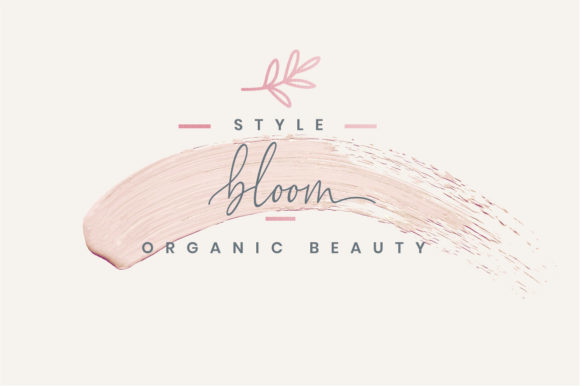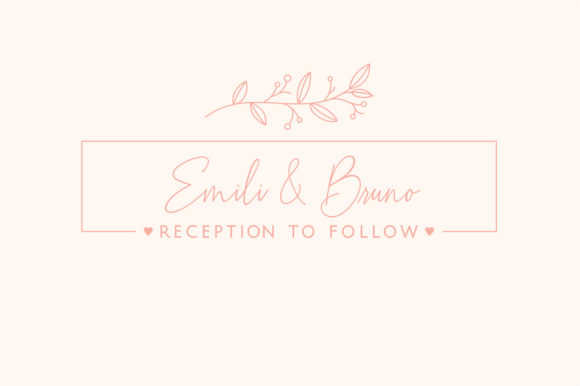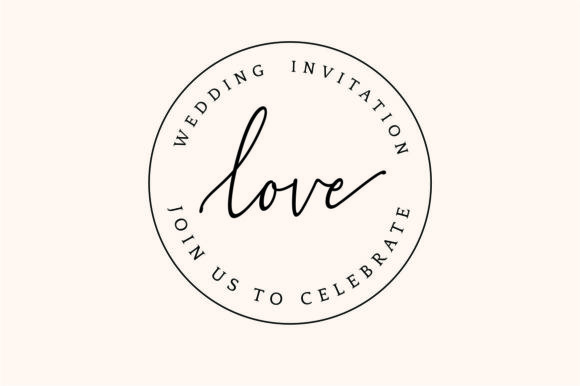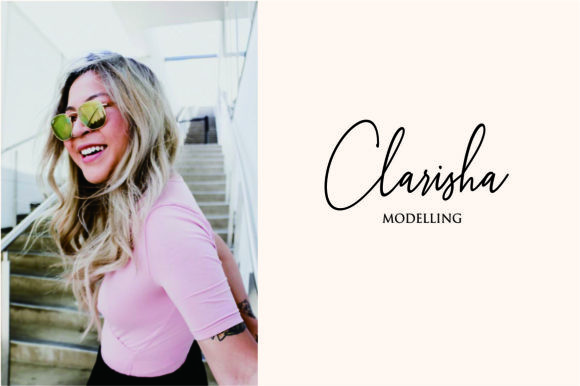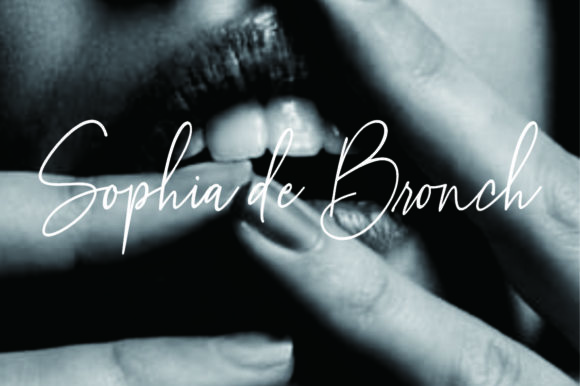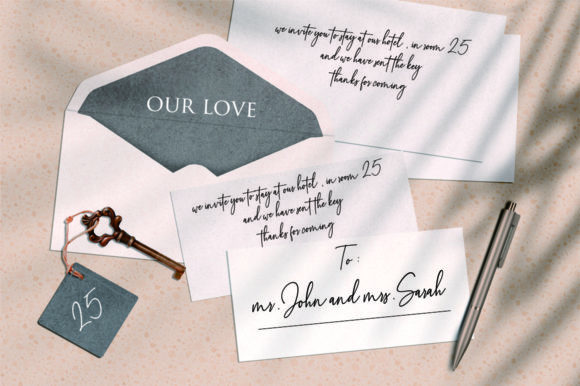
The Blancha Font: A Sweet and Friendly Handwritten Delight
I’ll never forget the design project that led me to discover the Blancha font. I was working on a branding project for a new coffee shop, and I was struggling to find the perfect font to capture their friendly and modern vibe. That’s when I stumbled upon Blancha, a sweet and friendly handwritten font that instantly won me over. In this article, I’ll share my love for Blancha, its features, and how to make the most of it in your designs.
An Honest Review of Blancha Font
What I Love About Blancha ✨
• ✅ Unique and modern look: Blancha has a distinct, cool style that sets it apart from other handwritten fonts.
• ✅ Elegant and legible: The font is easy to read, making it perfect for body text, headings, and titles.
• ✅ Versatile: Blancha works well for a wide range of design projects, from branding and advertising to crafting and DIY projects.
• ✅ OpenType features: Blancha supports OpenType features, including glyphs and stylistic alternates, which allow for creative experimentation.
While Blancha is an excellent font, it’s not without its limitations. ⚠️ Some users may find that the font:
• ⚠️ Lacks extreme bold or italic variations: If you need a super bold or italic font, Blancha might not be the best choice.
• ⚠️ May not be suitable for very small text sizes: Blancha is best used at larger text sizes (14px and above) to maintain its elegance and legibility.
The Story Behind Blancha Font
Blancha was designed with the intention of creating a friendly, approachable font that would bring a touch of warmth to any design project. Its creator drew inspiration from modern calligraphy and handwriting styles, aiming to craft a font that’s both elegant and legible.
What is Blancha font best used for? Blancha is versatile and can be used for a wide range of design projects, including branding, advertising, crafting, and DIY projects.
Does Blancha support OpenType features? Yes, Blancha supports OpenType features, including glyphs and stylistic alternates.